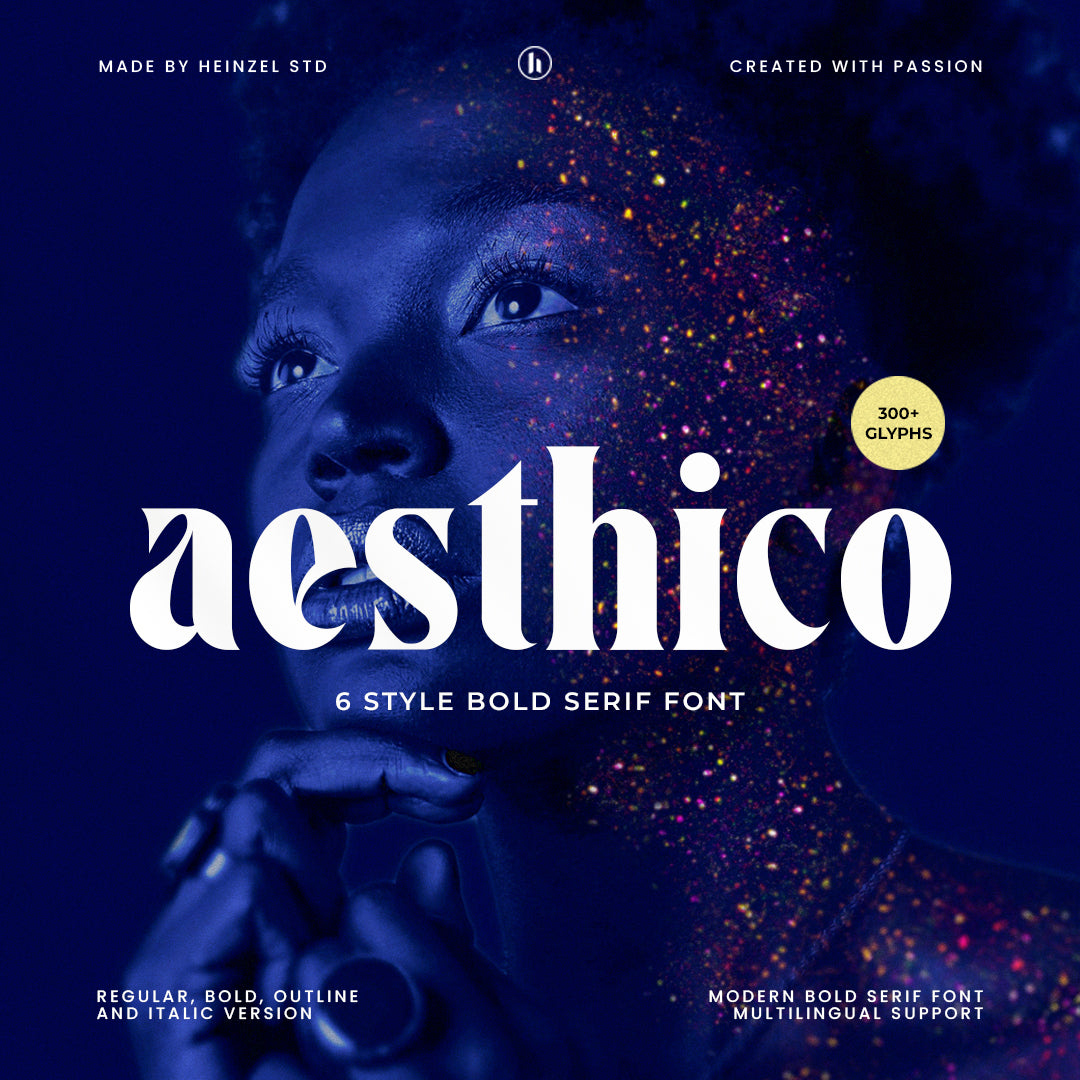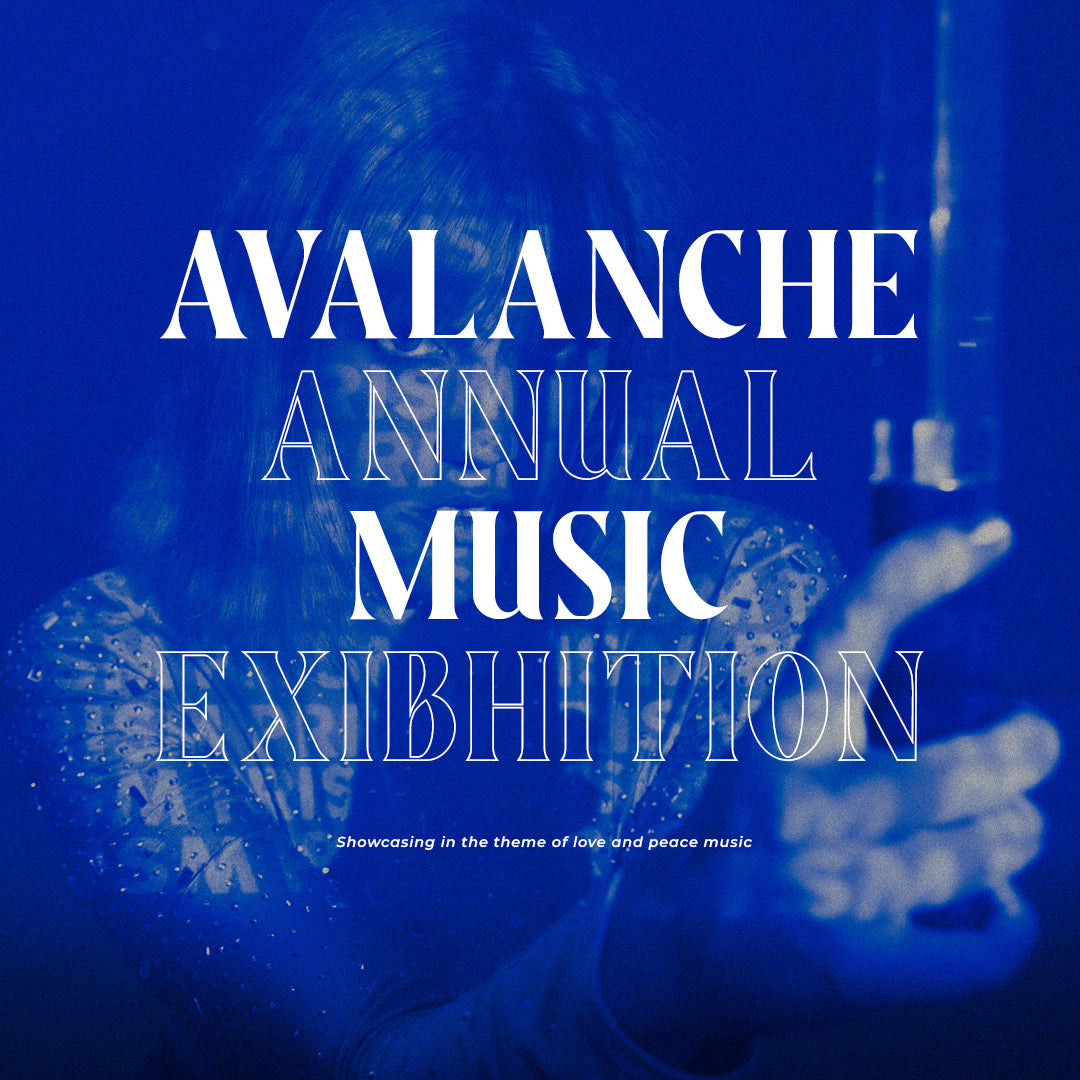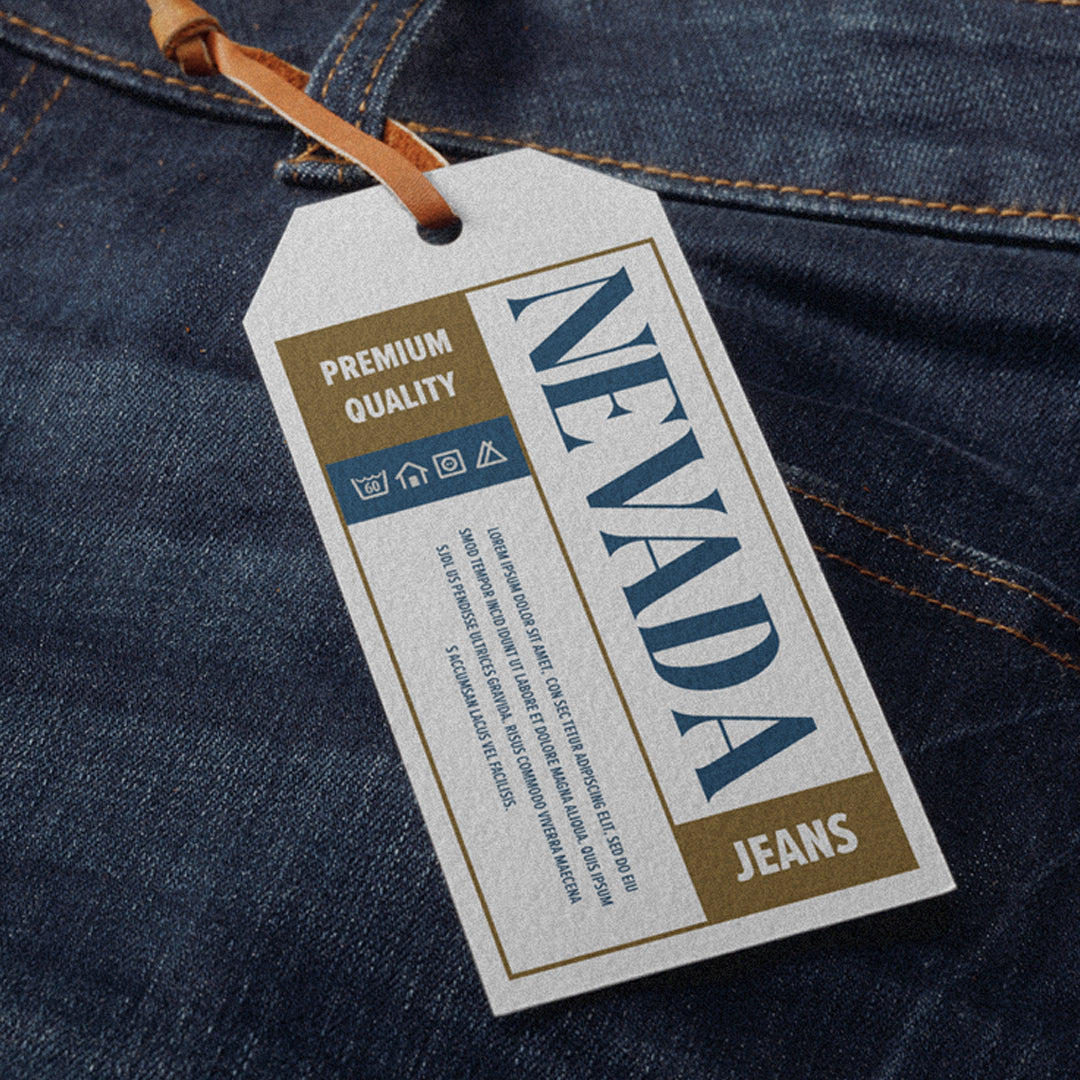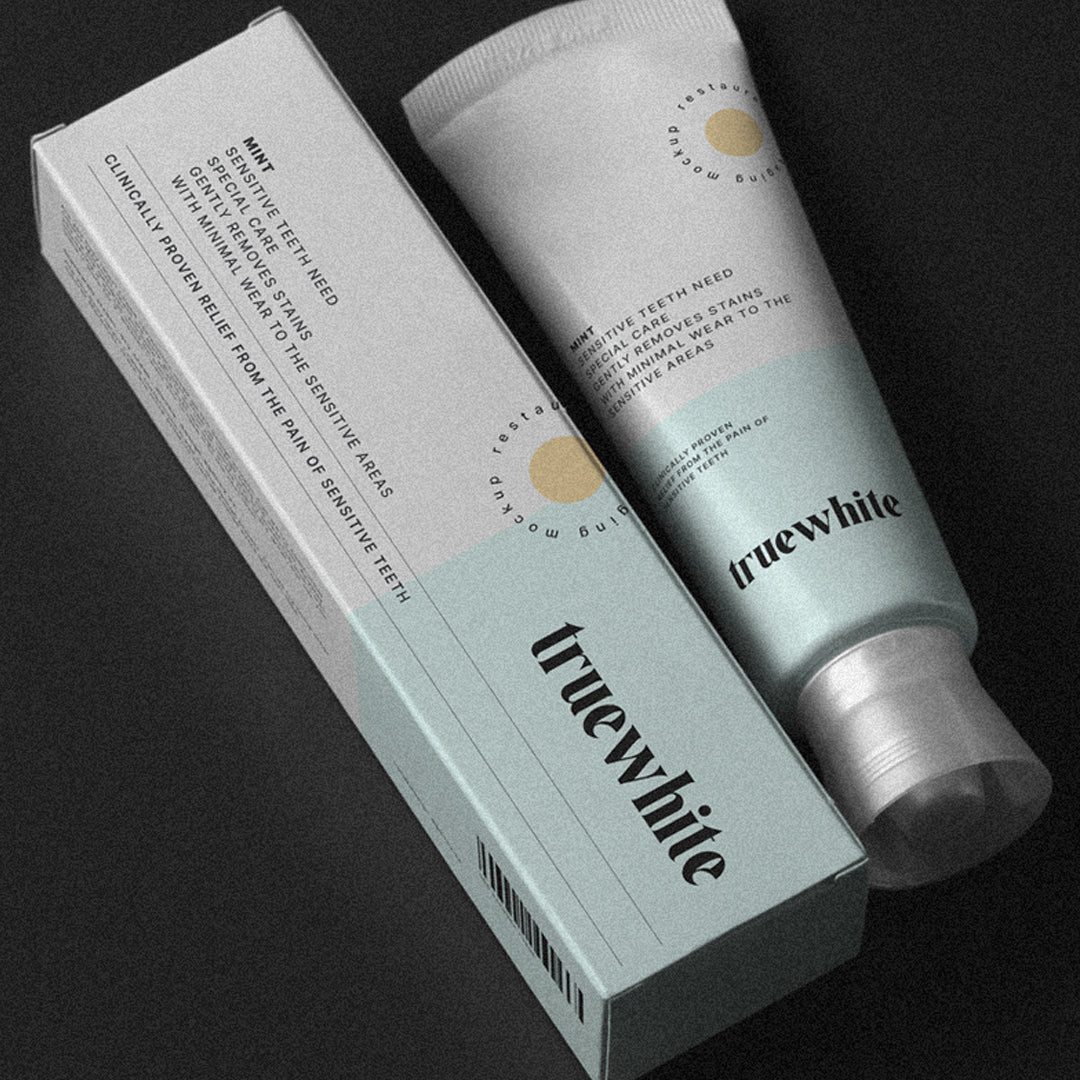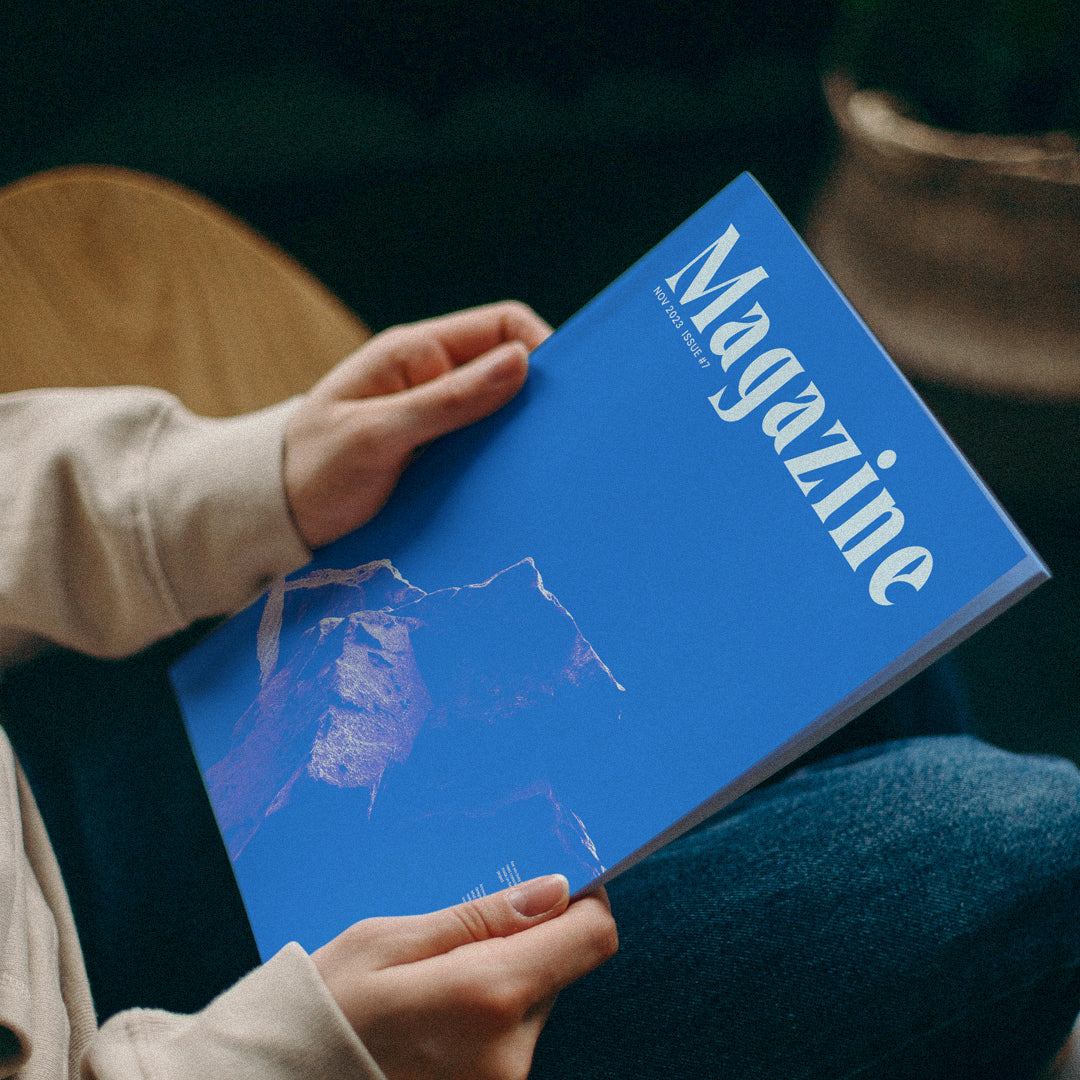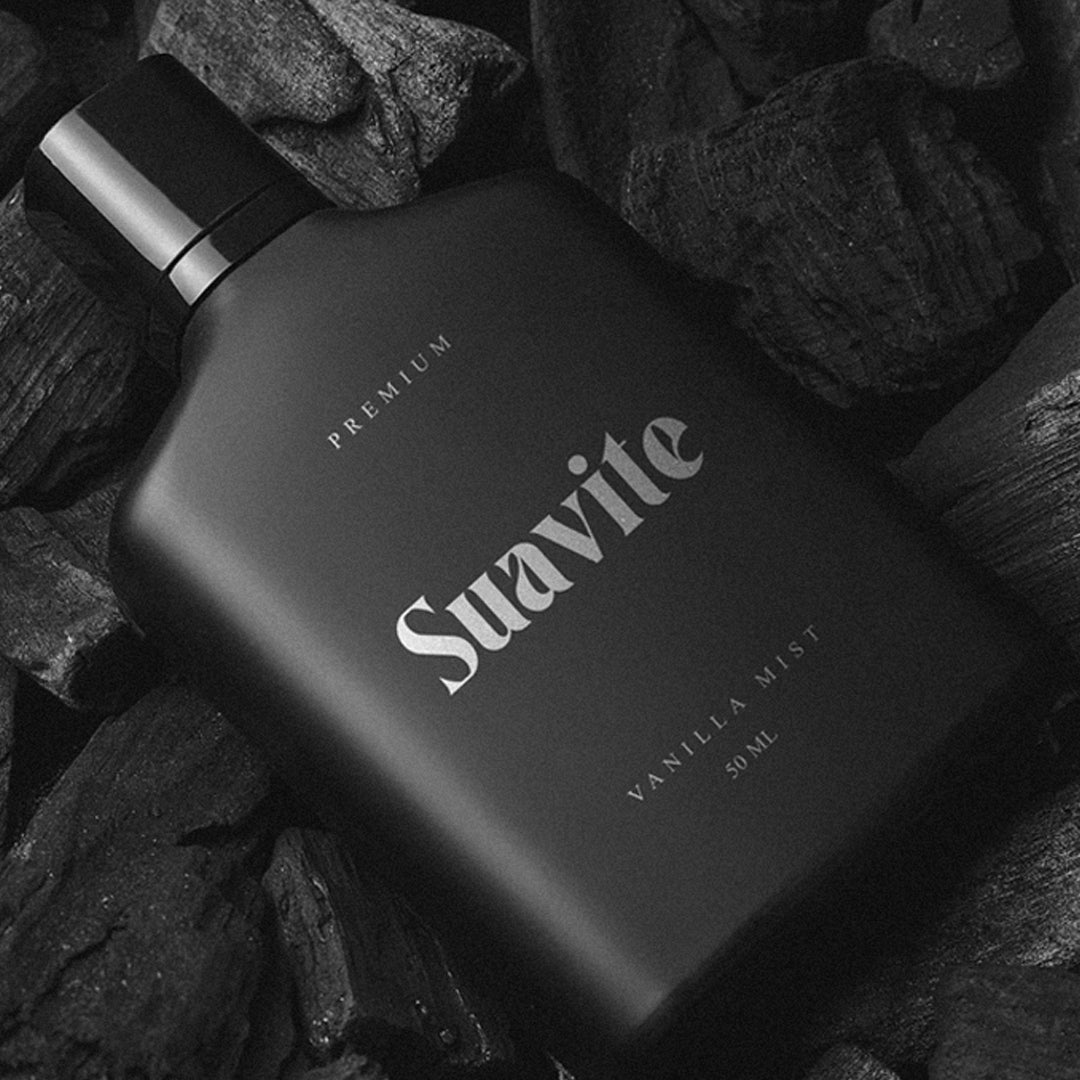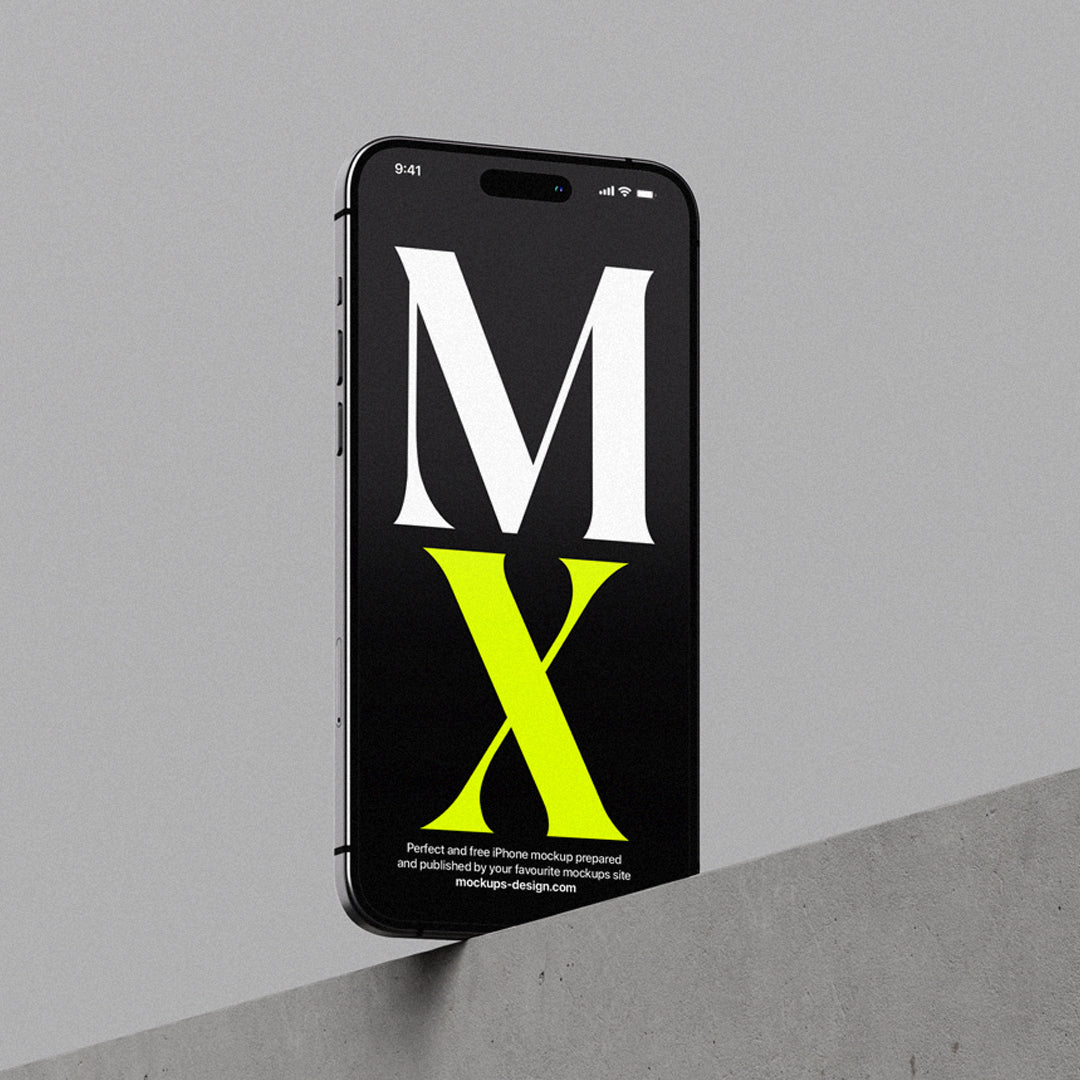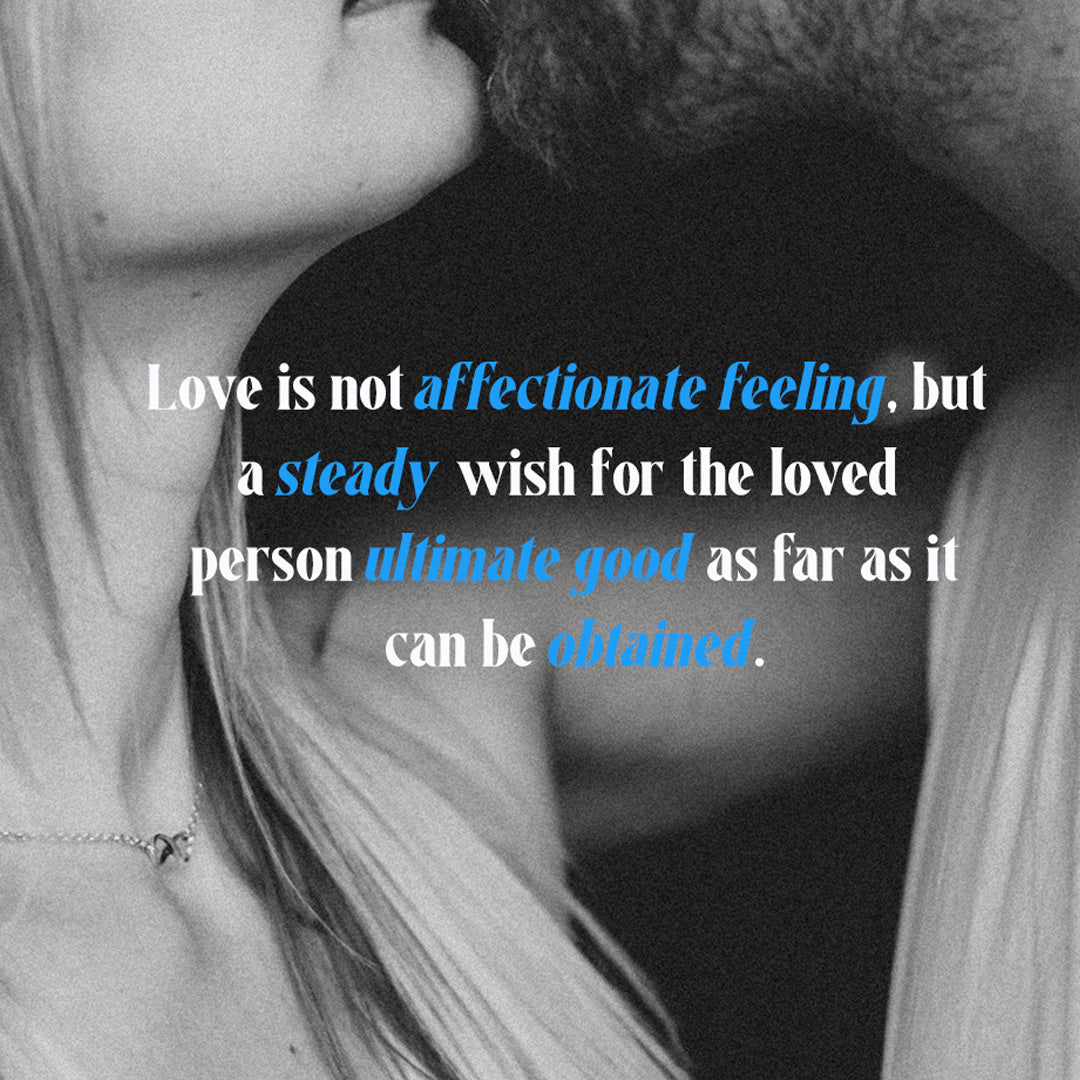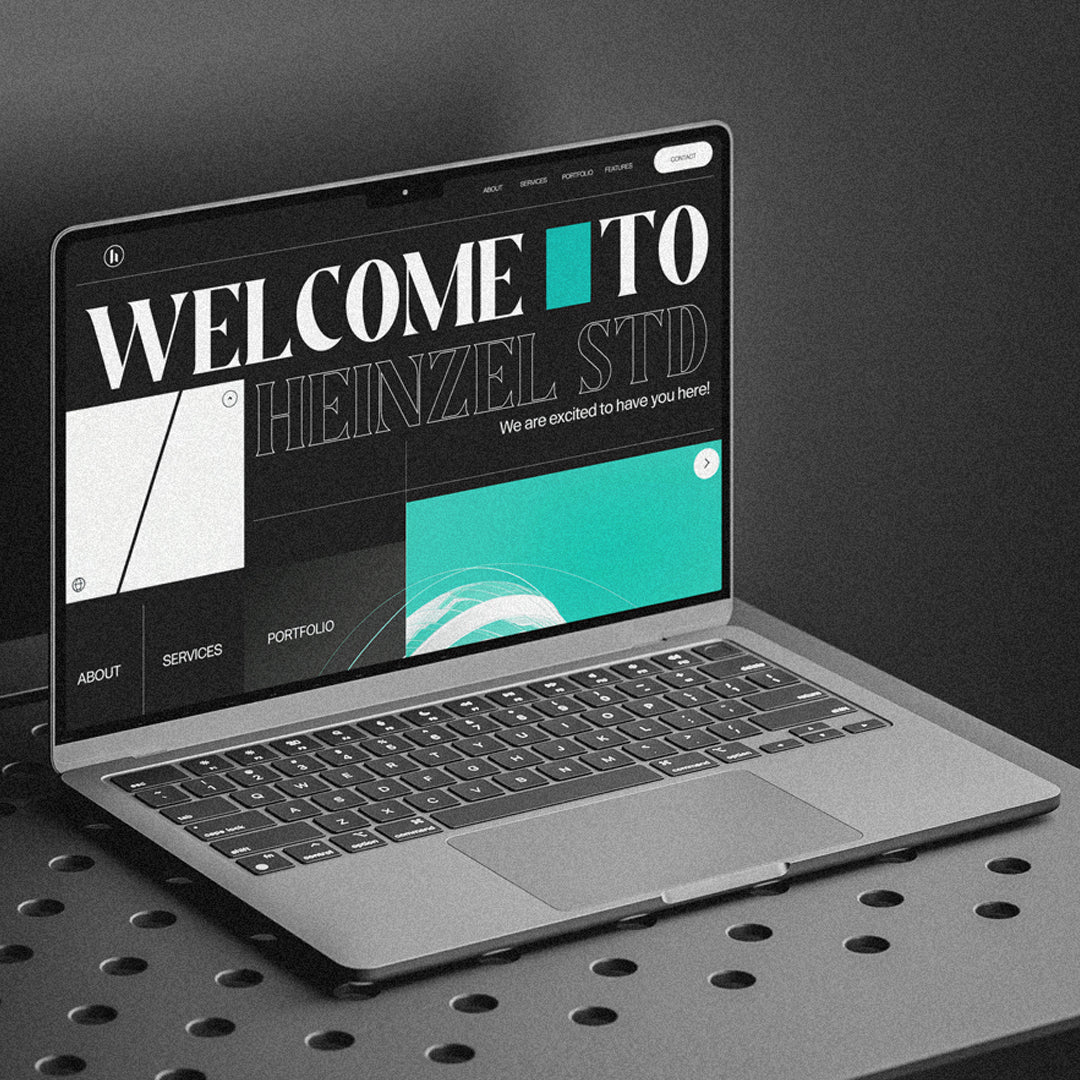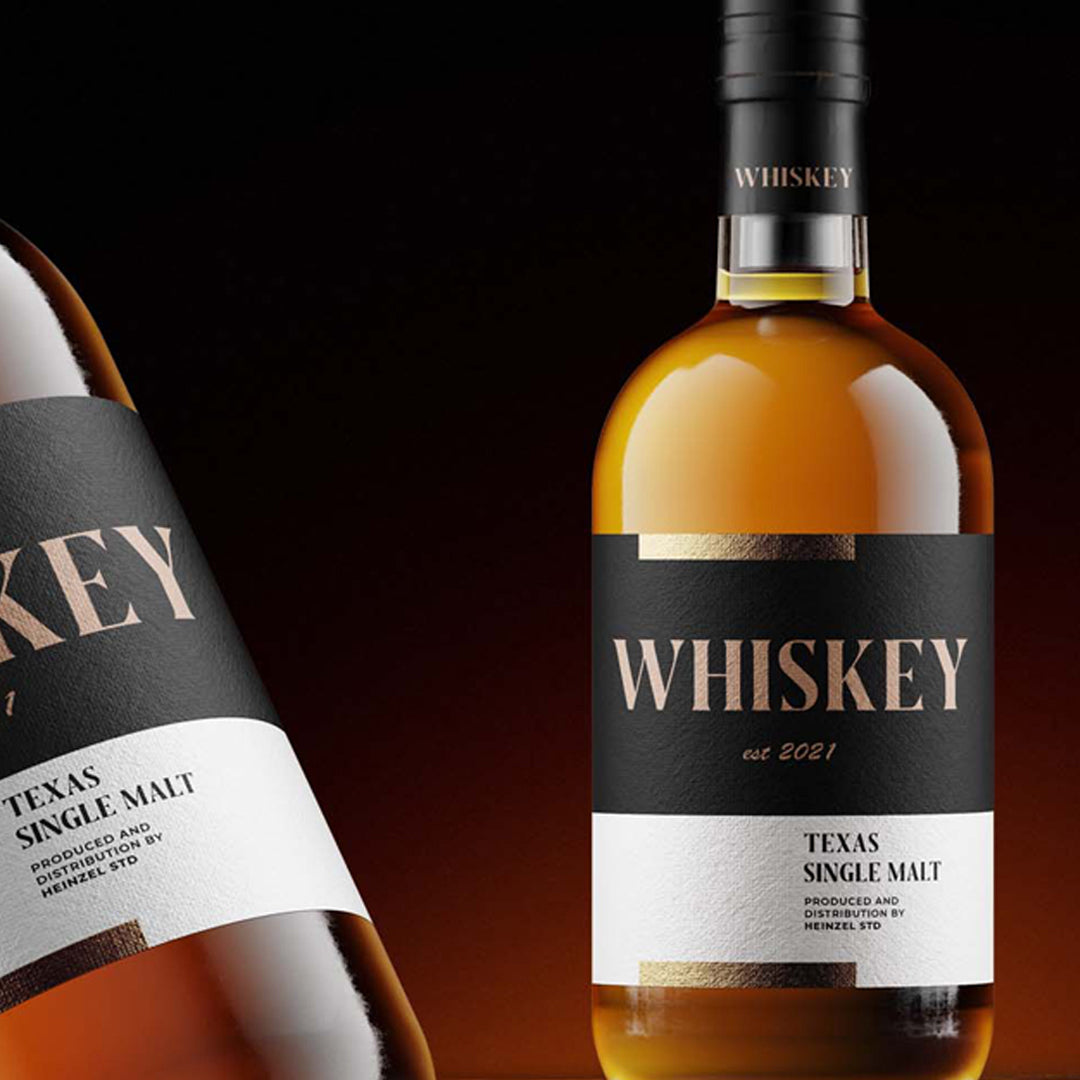
Aesthico Bold Serif Font Family
Aesthico is a modern serif font family designed to bring elegance, style, and versatility to your creative projects. With its bold strokes and refined curves, Aesthico blends classic serif charm with a fresh contemporary edge.
This font family includes Regular, Bold, Outline, and Italic versions, giving you the flexibility to create striking headlines, logos, branding, posters, packaging, social media graphics, and editorial designs. With 300+ glyphs and multilingual support, Aesthico ensures your designs look stunning in multiple languages and layouts.
Whether you’re building a bold brand identity or crafting stylish marketing materials, Aesthico delivers a sophisticated aesthetic that stands out.
✨ Features:
6 Style Serif Font Family (Regular, Bold, Outline, and Italics)
300+ Glyphs with extended character set
Modern bold serif design with timeless appeal
Perfect for logos, branding, headlines, and editorial use
Multilingual support for global projects
Aesthico Bold Serif Font Family is a serif typeface family that includes Regular, Bold, Outline, and Italic styles, with 300+ glyphs and multilingual character support.